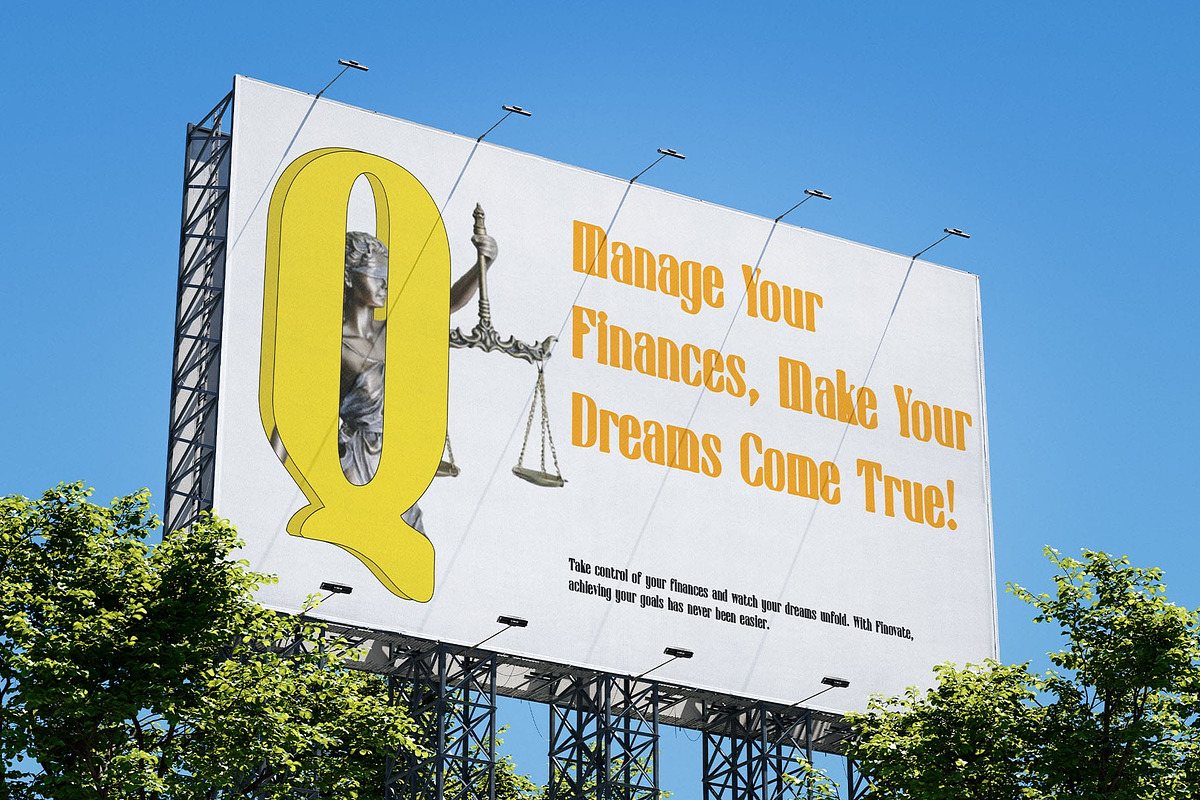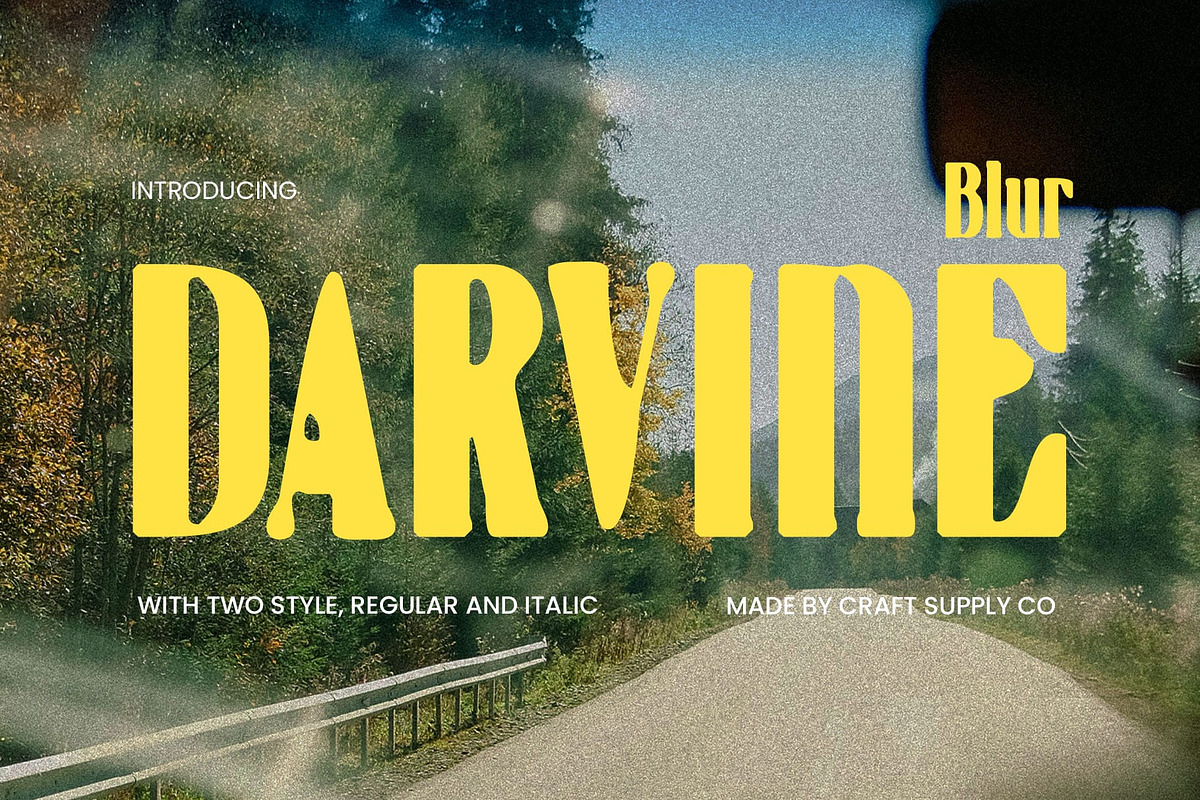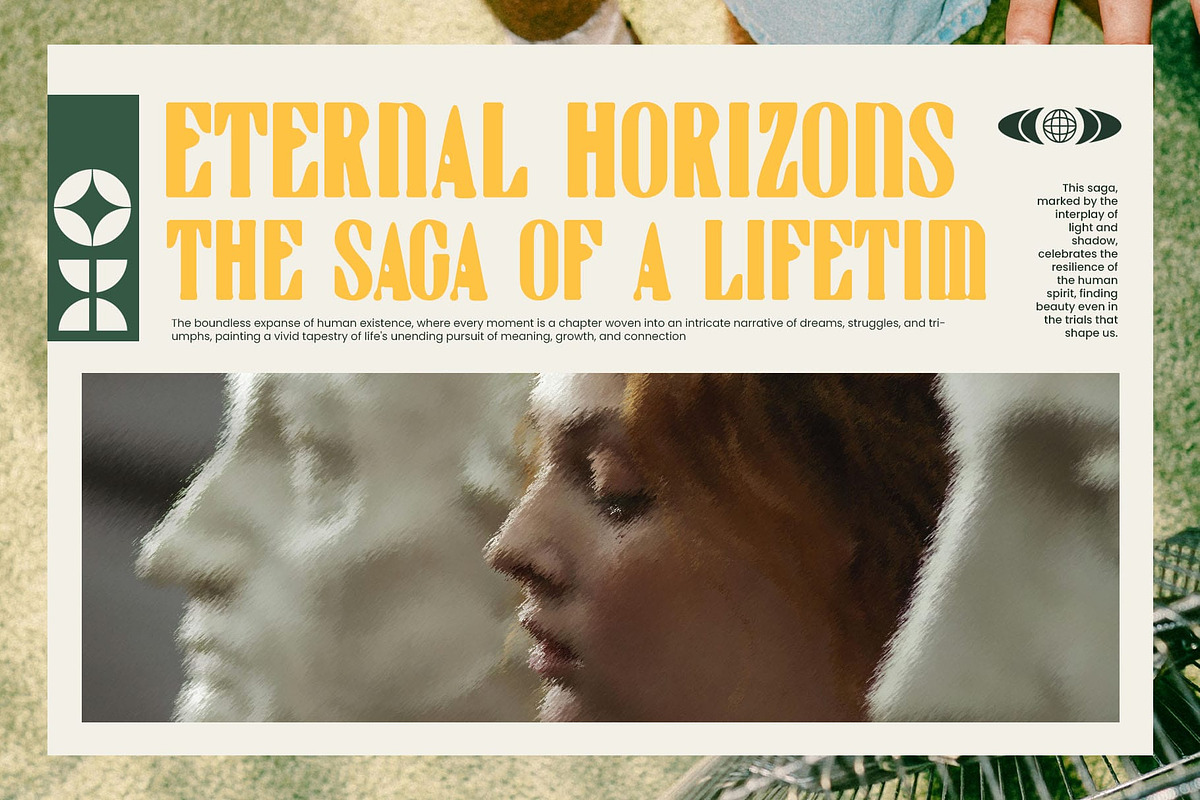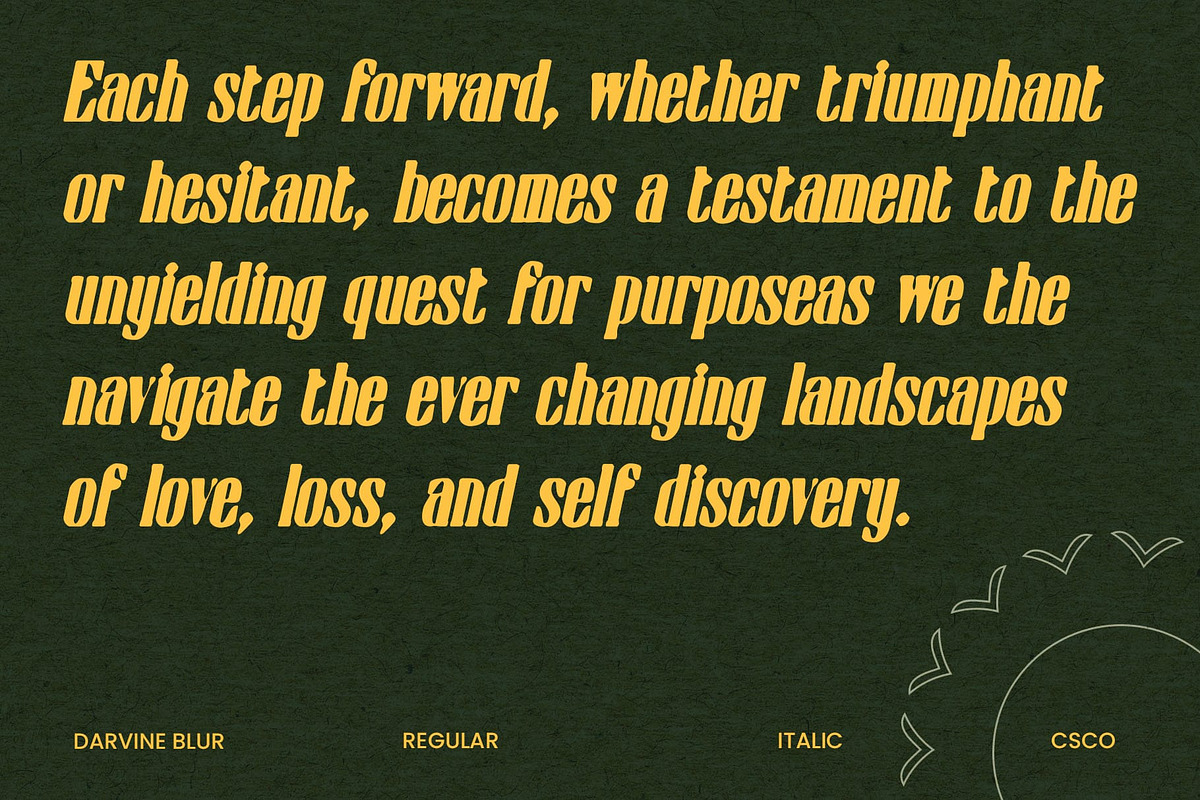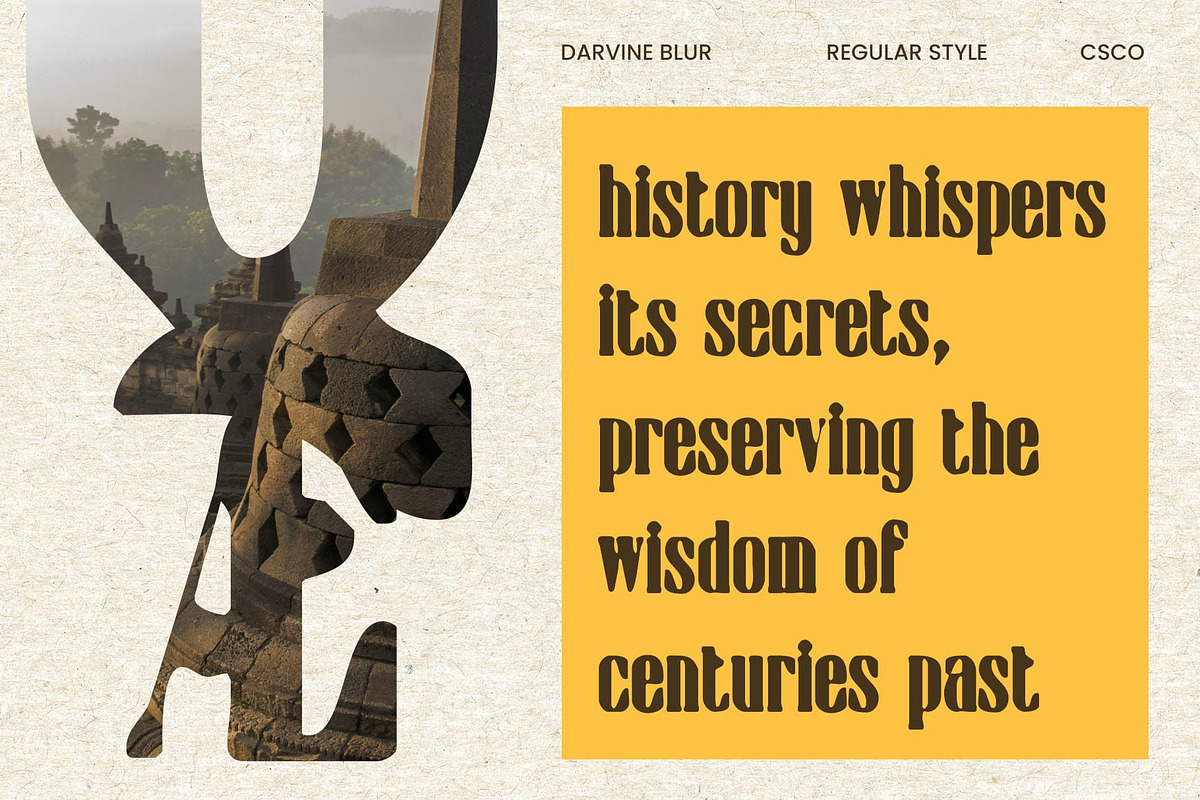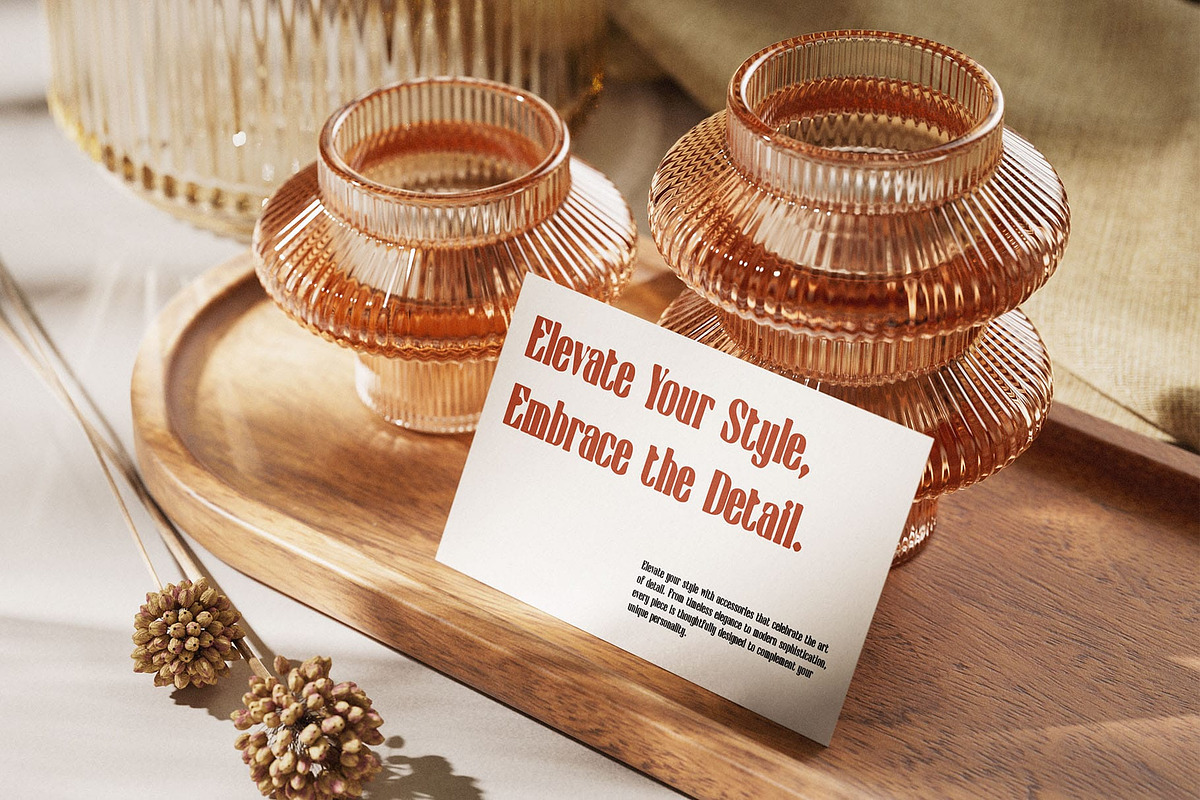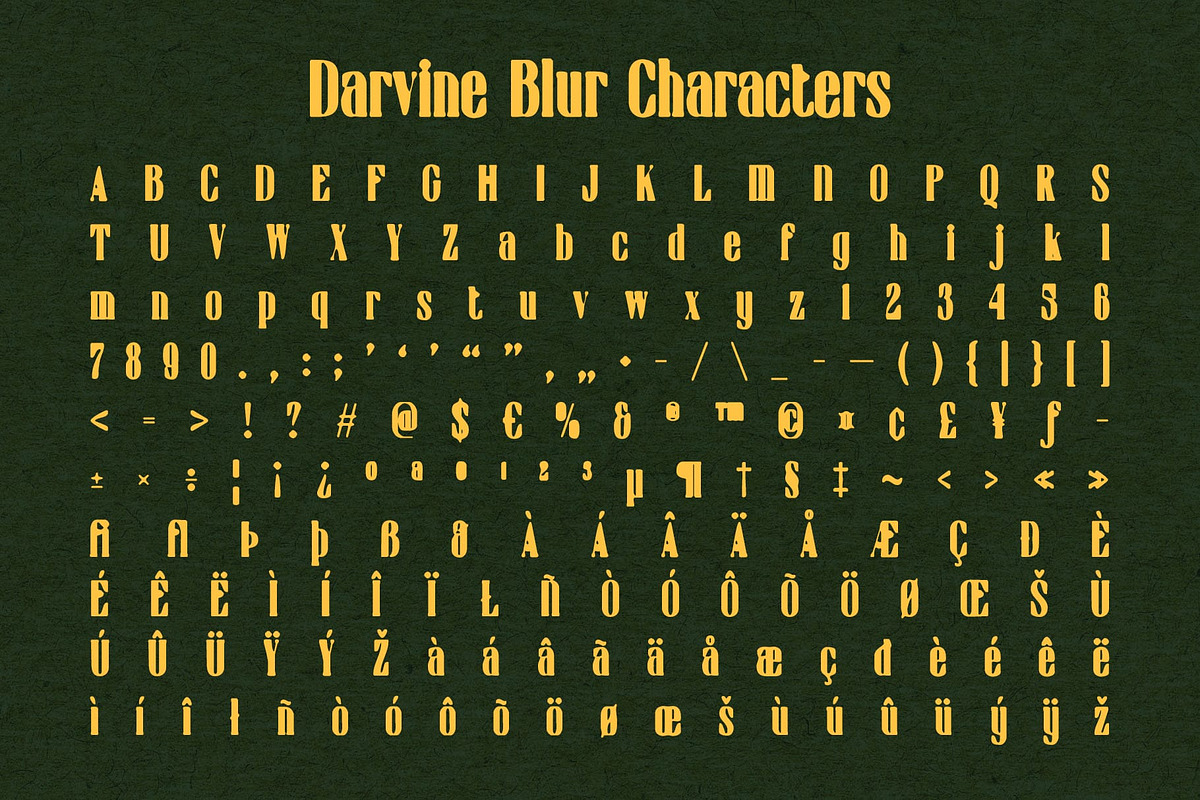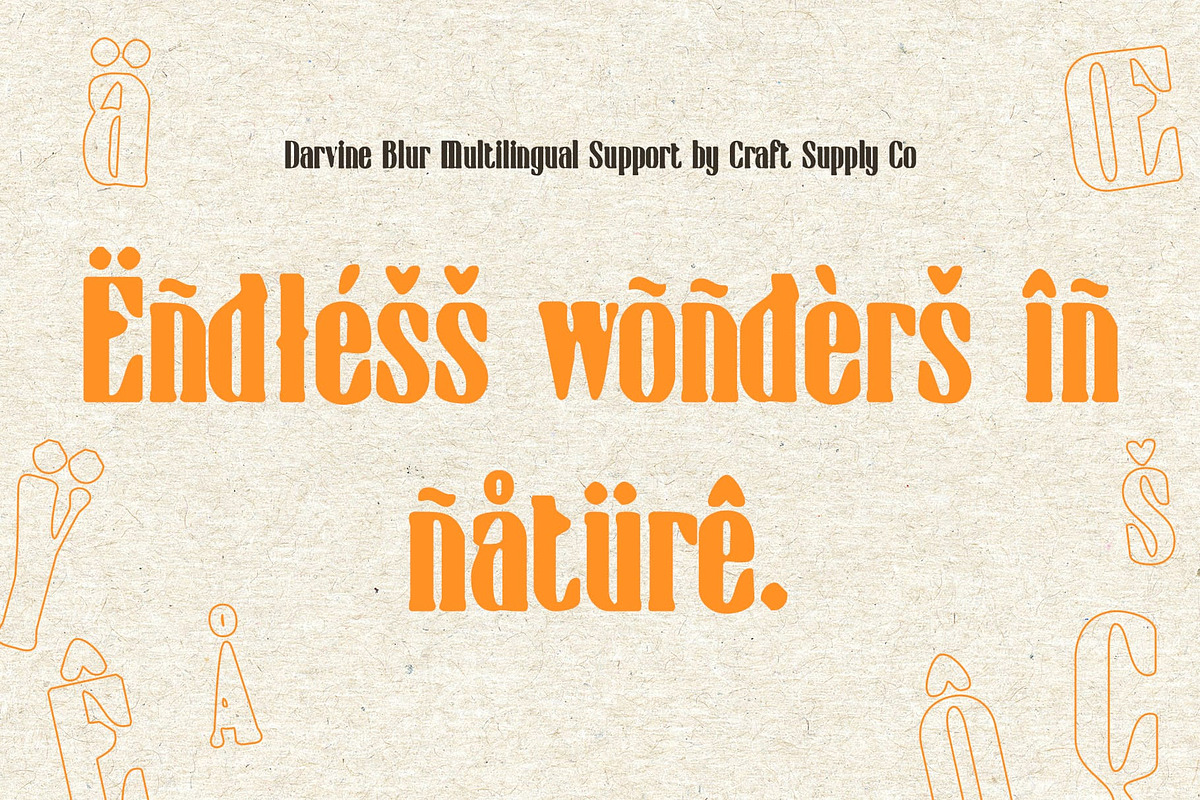
Darvine Blur
Darvine Blur – Modern Serif Font with a Luxurious Experimental Twist
Classic Elegance with a Contemporary Edge Darvine Blur is a modern serif font that masterfully balances classic refinement with contemporary aesthetics. Featuring a condensed form and well-defined serifs, it maintains a sleek, high-end appeal while optimizing space efficiency. Its tall, structured letterforms evoke a sense of professionalism and exclusivity, making it ideal for premium branding and sophisticated design applications.
Blur Effect for a Distinctive Visual Impact What sets Darvine Blur apart is its subtle yet striking blur effect, which introduces a sense of motion and depth to the typography. This experimental distortion softens the rigid precision of a traditional serif, resulting in an intriguing visual dynamic. The interplay between clarity and abstraction makes it particularly suited for avant-garde editorials, luxury packaging, and artistic branding.
A Font for High-End and Artistic Projects With its elegant structure and contemporary blur detail, Darvine Blur seamlessly fits into fashion campaigns, editorial layouts, and modern digital interfaces. Its sophisticated yet unconventional character ensures a distinctive presence in any application, whether in print or digital media.
Redefining Serif Typography Darvine Blur is more than just a typeface—it’s a statement of artistic sophistication. Its fusion of classic serif traditions with modern experimental effects makes it an essential tool for designers seeking to push creative boundaries while maintaining a refined and luxurious aesthetic.
- Darvine Blur Regular
- Darvine Blur Italic